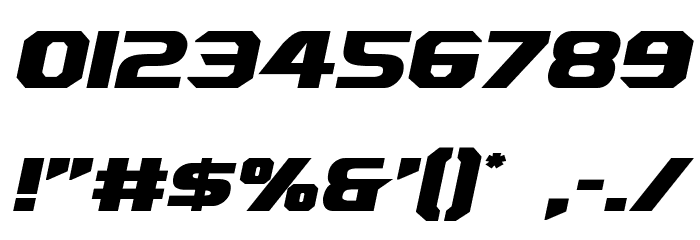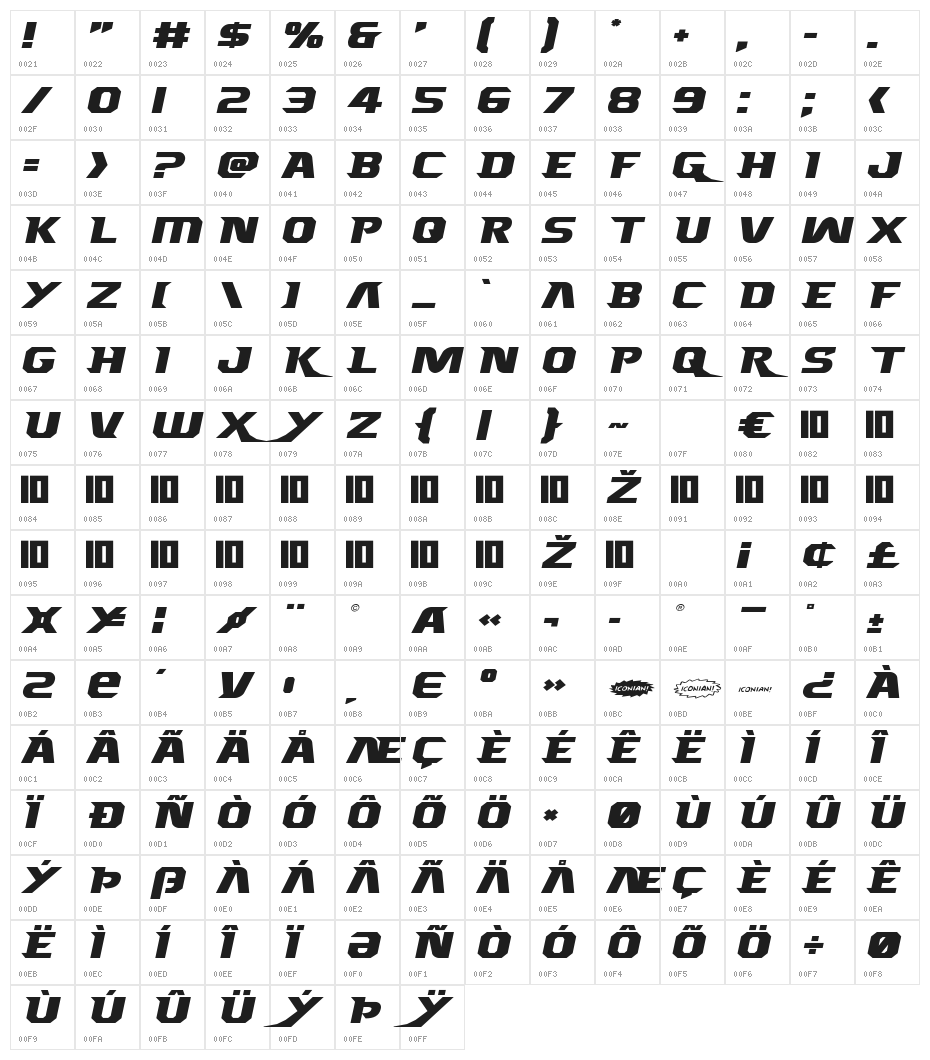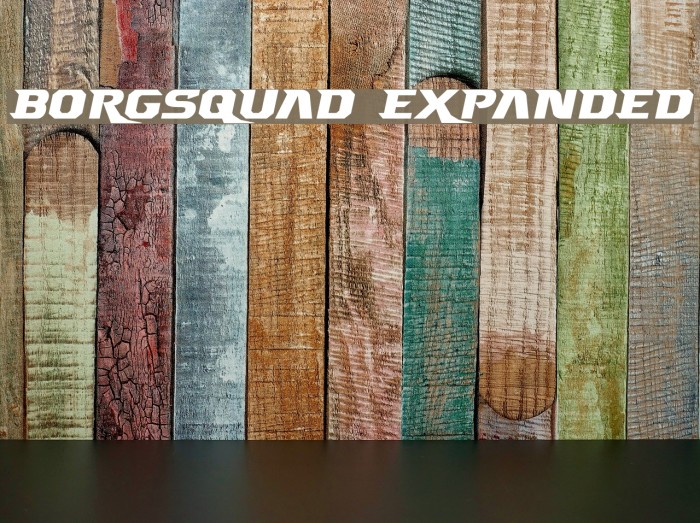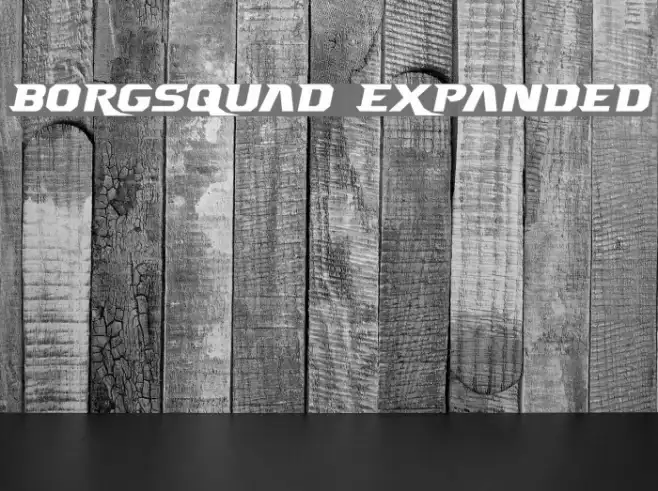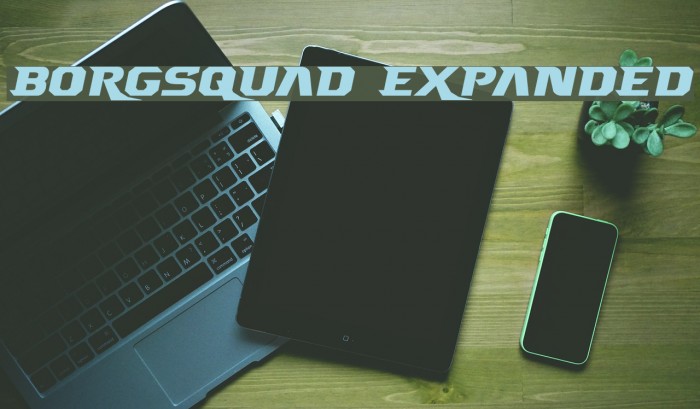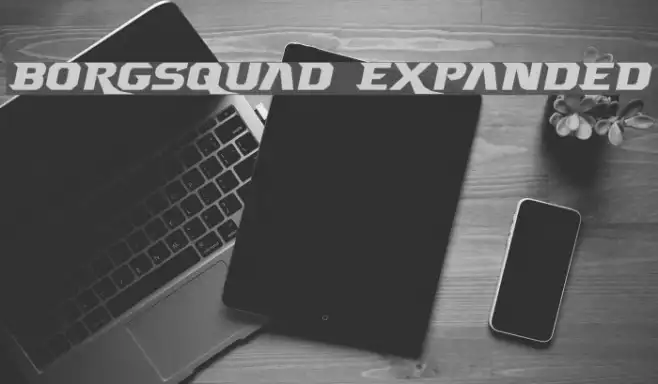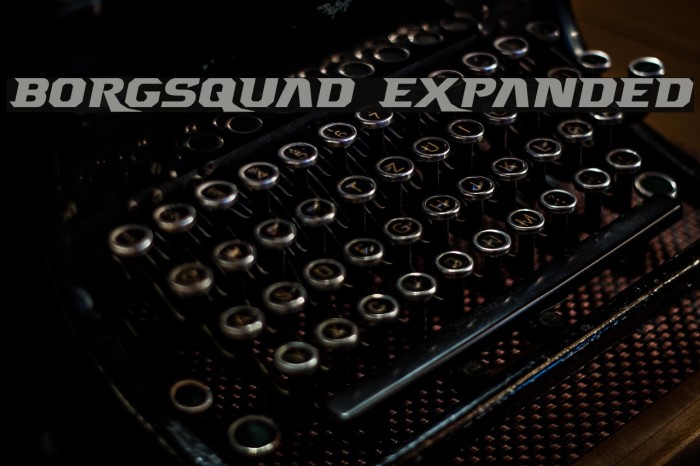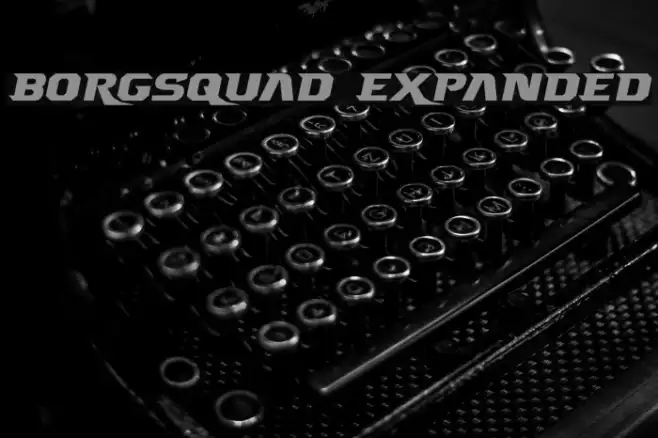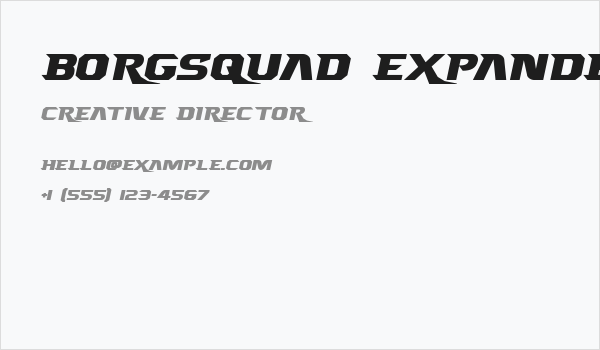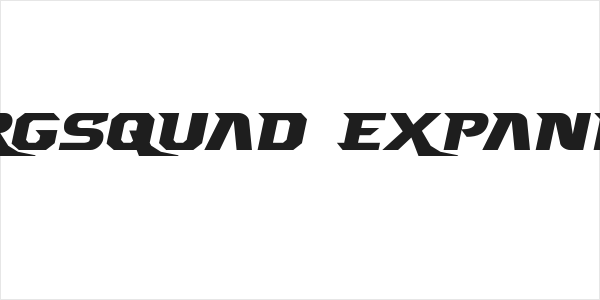
Borgsquad Expanded Font
Borgsquad Expanded Description
This font features a bold and futuristic design with sharp, angular edges and a dynamic, forward-leaning stance. The characters are wide and have a distinct geometric style, giving them a strong presence. The uppercase and lowercase letters maintain a consistent style, with the lowercase slightly smaller but equally impactful. Numbers and special characters follow the same design principles, ensuring uniformity across all glyphs. The font's aggressive and modern aesthetic makes it suitable for projects that require a bold statement.
Overall StyleFuturistic
Proposed ProjectsIdeal for sci-fi themed designs, video game titles, tech branding, and sports team logos.